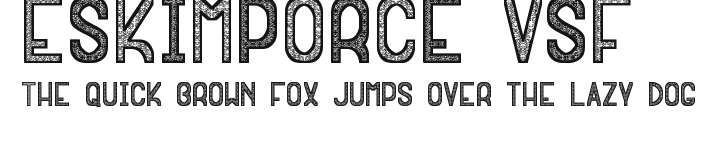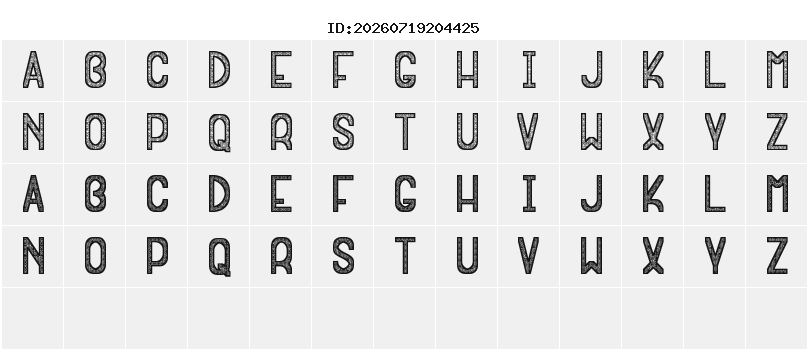
• Font Name: EsKiMpOrCe VsF
About EsKiMpOrCe VsF.ttf
EsKiMpOrCe VsF.ttf is a modern, elegant sans-serif font designed for ultimate readability and visual harmony. Perfect for branding, headlines, web design, and print materials.